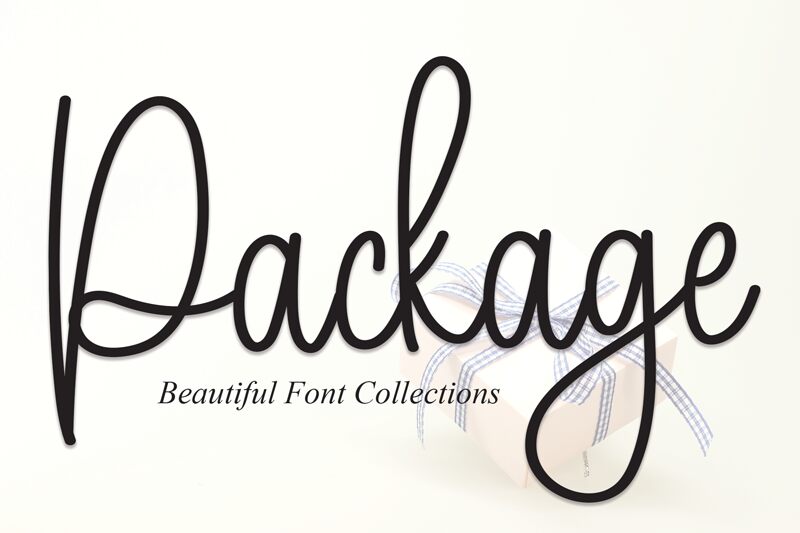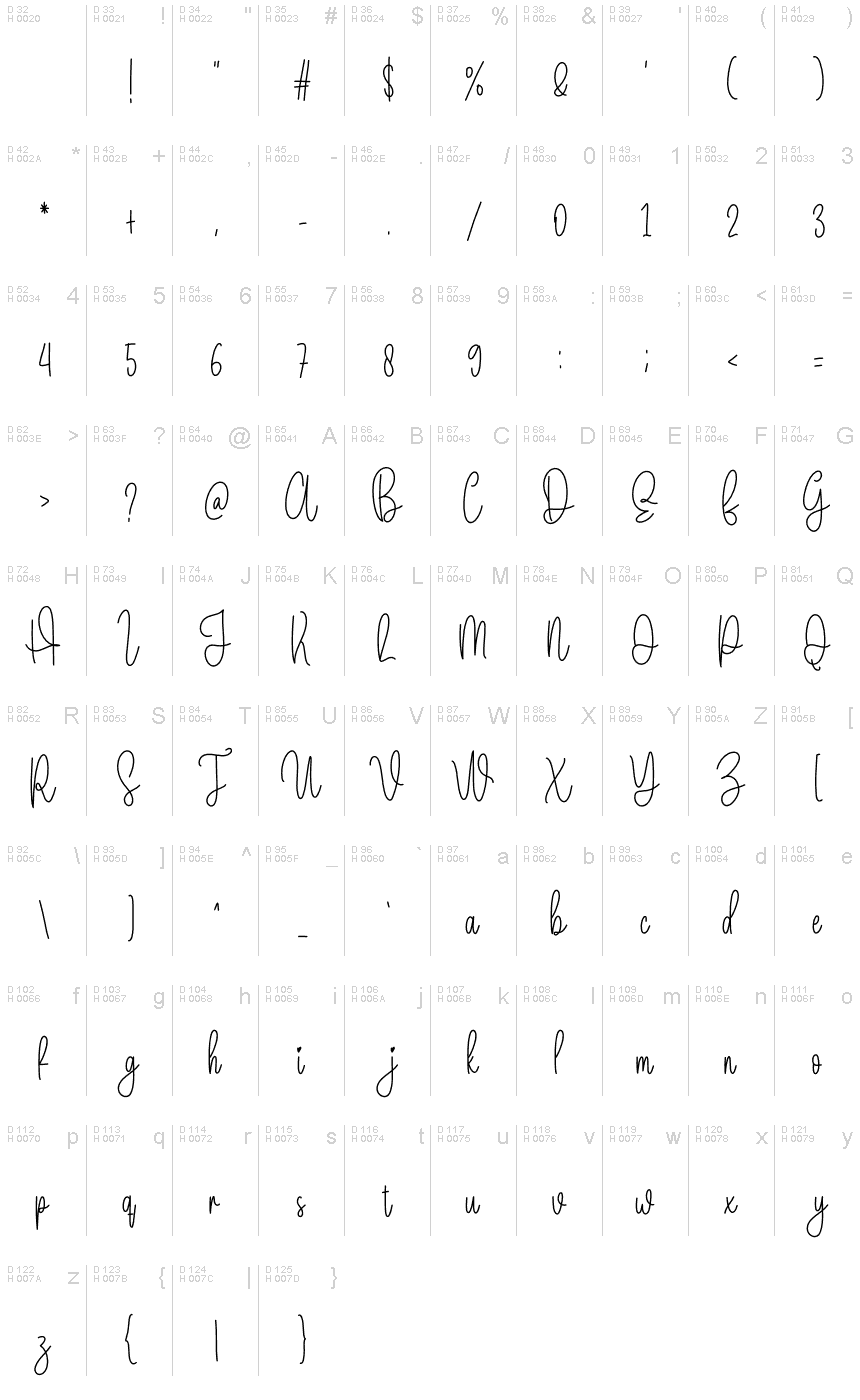
Package
Package, crafted by Scratchones, is a handwritten font that carries an air of casual elegance with its semi-light weight and semi-condensed width. Its flowing, cursive lines evoke the charm of personalized handwriting, making it an excellent choice for designs seeking a touch of individuality and warmth.
With its graceful curves and natural lettering style, Package offers a blend of readability and artistic flair that is as versatile as it is appealing. The gentle strokes give an impression of lightness yet maintain enough presence to stand out in any creative context.
Whether it's for branding, invitations, or product packaging, Package excels by adding a human touch to digital canvases. It’s particularly well-suited for projects aiming to convey intimacy and craftsmanship, bridging the digital divide with its approachable and distinctive character.